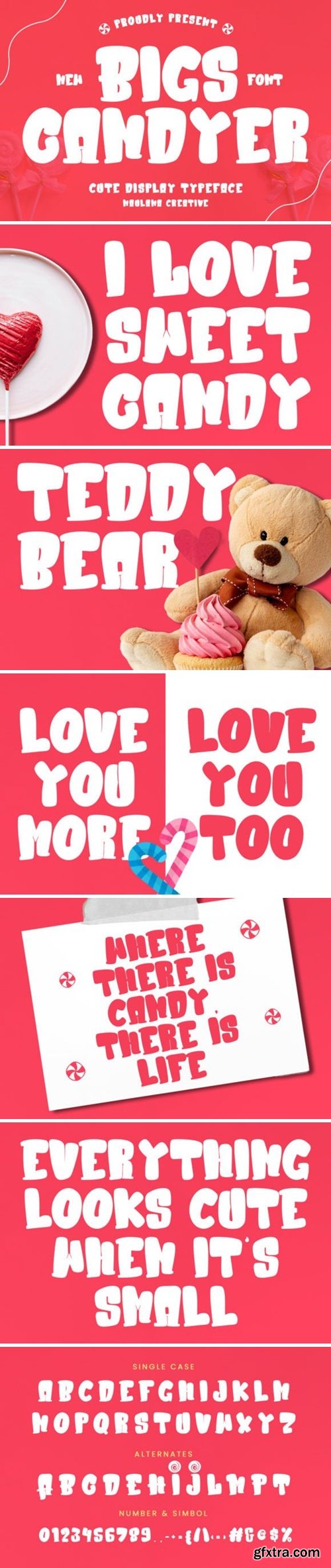
Bigs Candyer Cute Display Font. Bold stroke, fun character with a bit of ligatures and alternates. To give you an extra creative work. Bigs Candyer font support multilingual more than 100+ language. This font is good for logo design, Social media, Movie Titles, Books Titles, a short text even a long text letter and good for your secondary text font with script or serif. Make a stunning work with Bigs Candyer font.